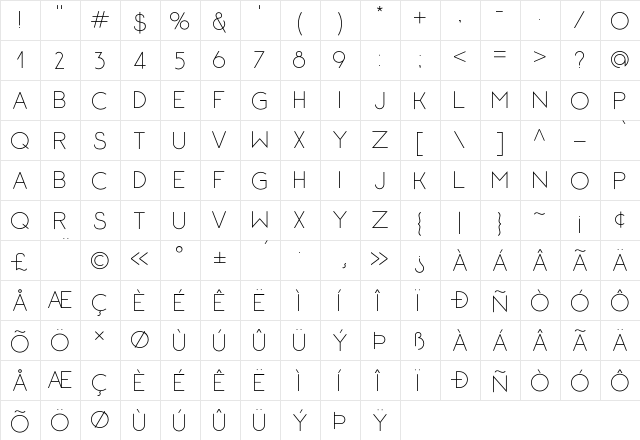
Zipper Regular Font Preview
Zipper Regular
Design Context for Zipper Typeface
Zipper offers clean, dependable letterforms without strong stylistic allegiance, making it a practical choice for designers who need flexibility.
Pro Tip: Use Zipper in both headline and body roles to test its range before committing to a single application.